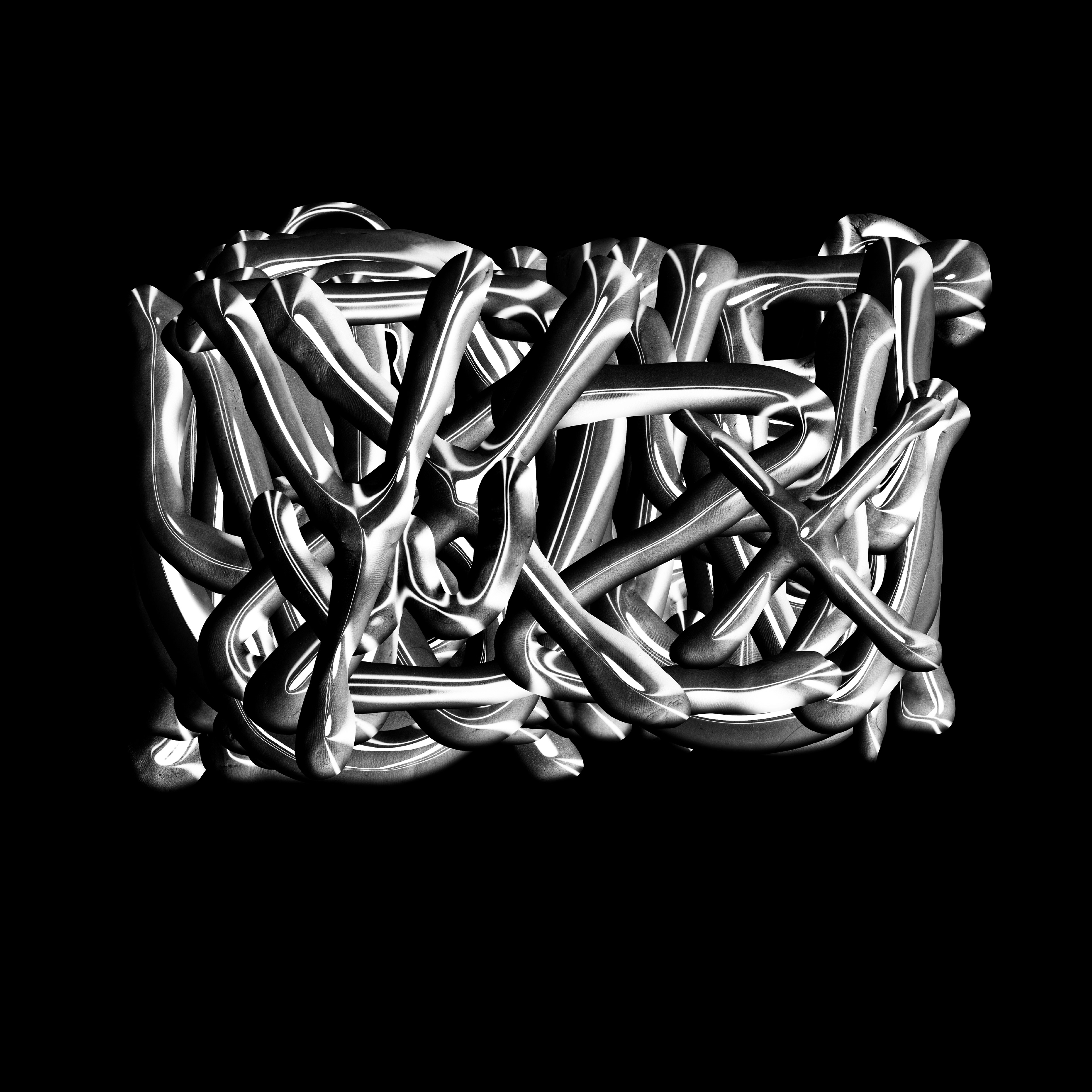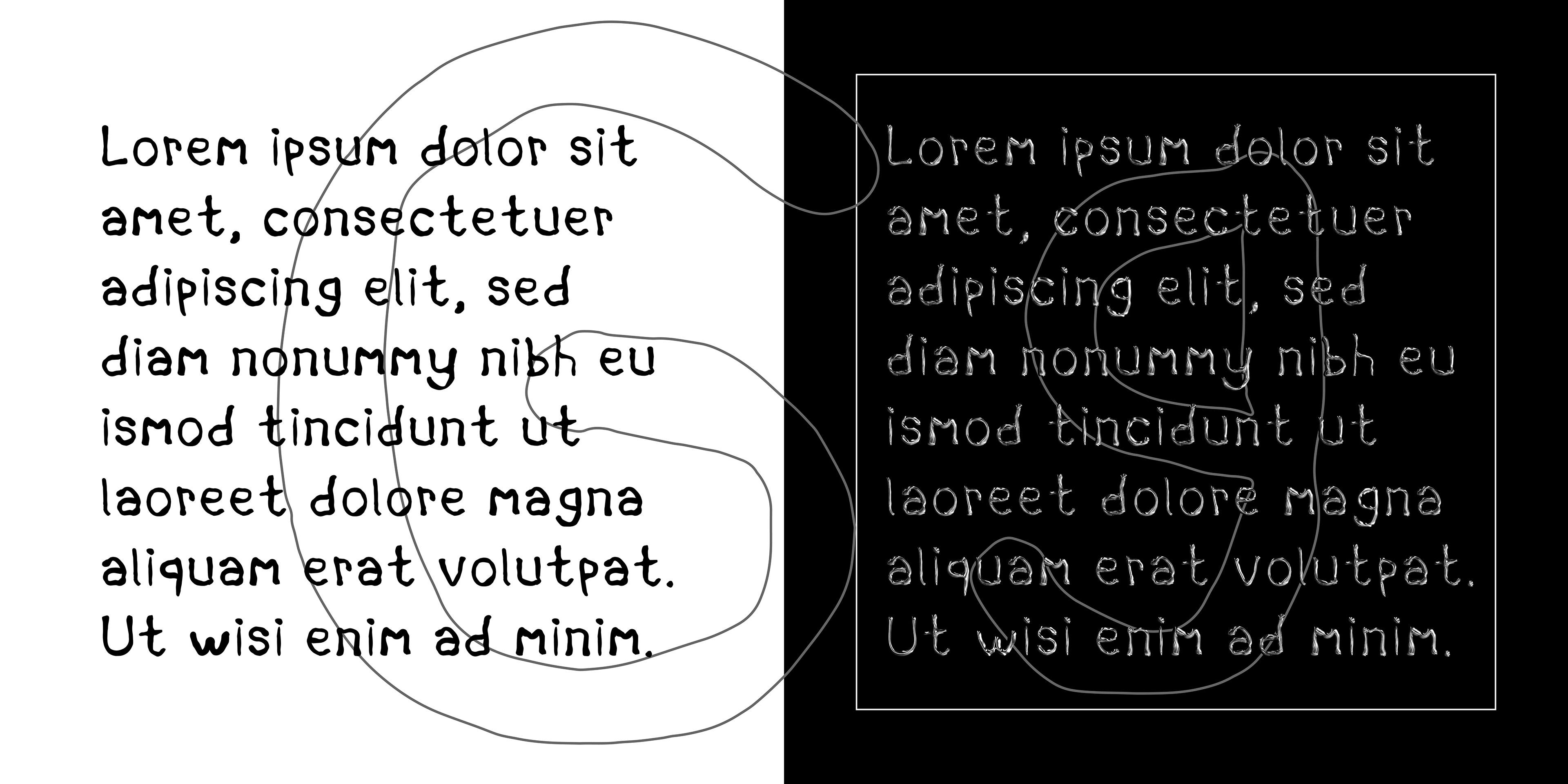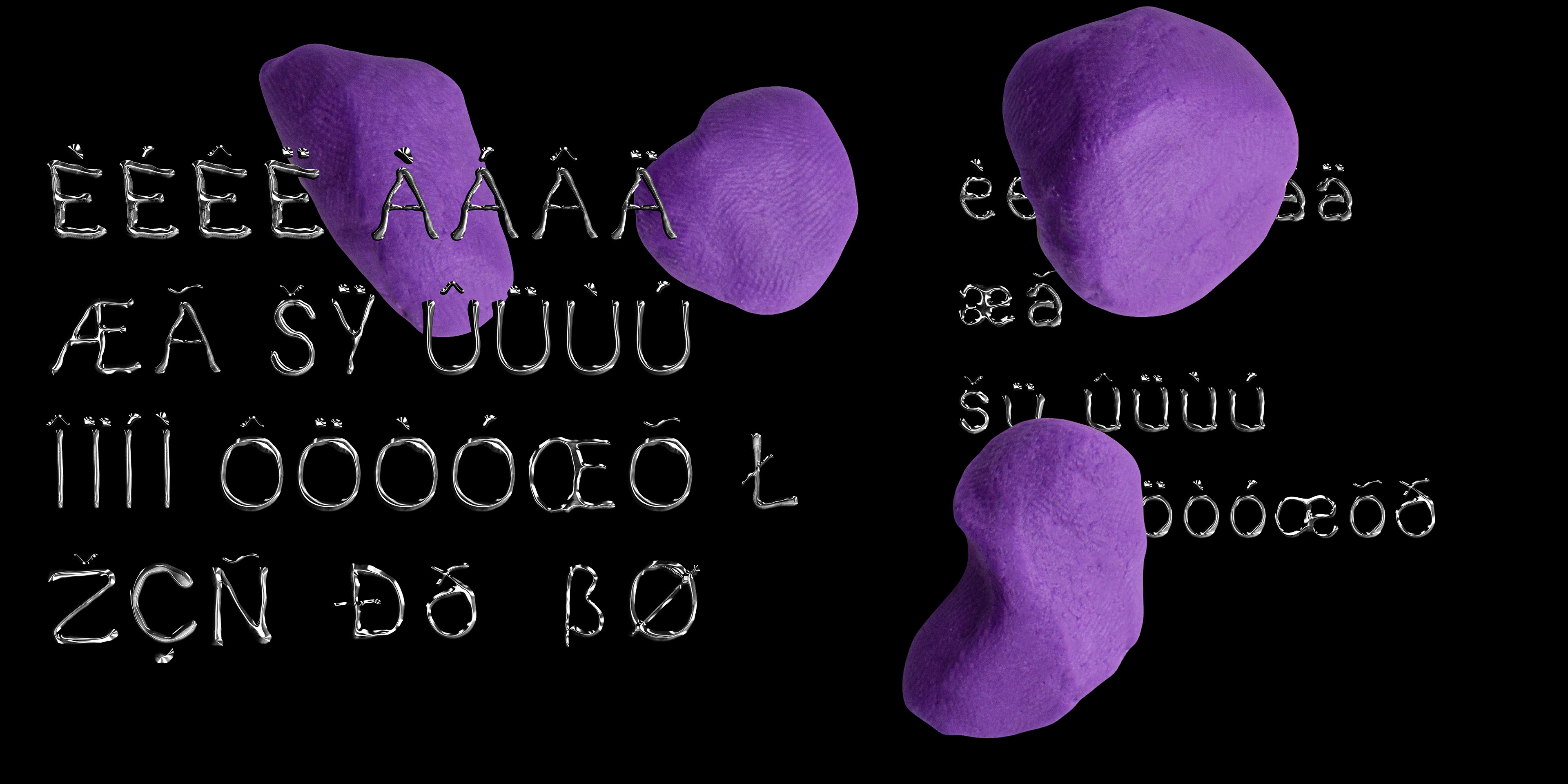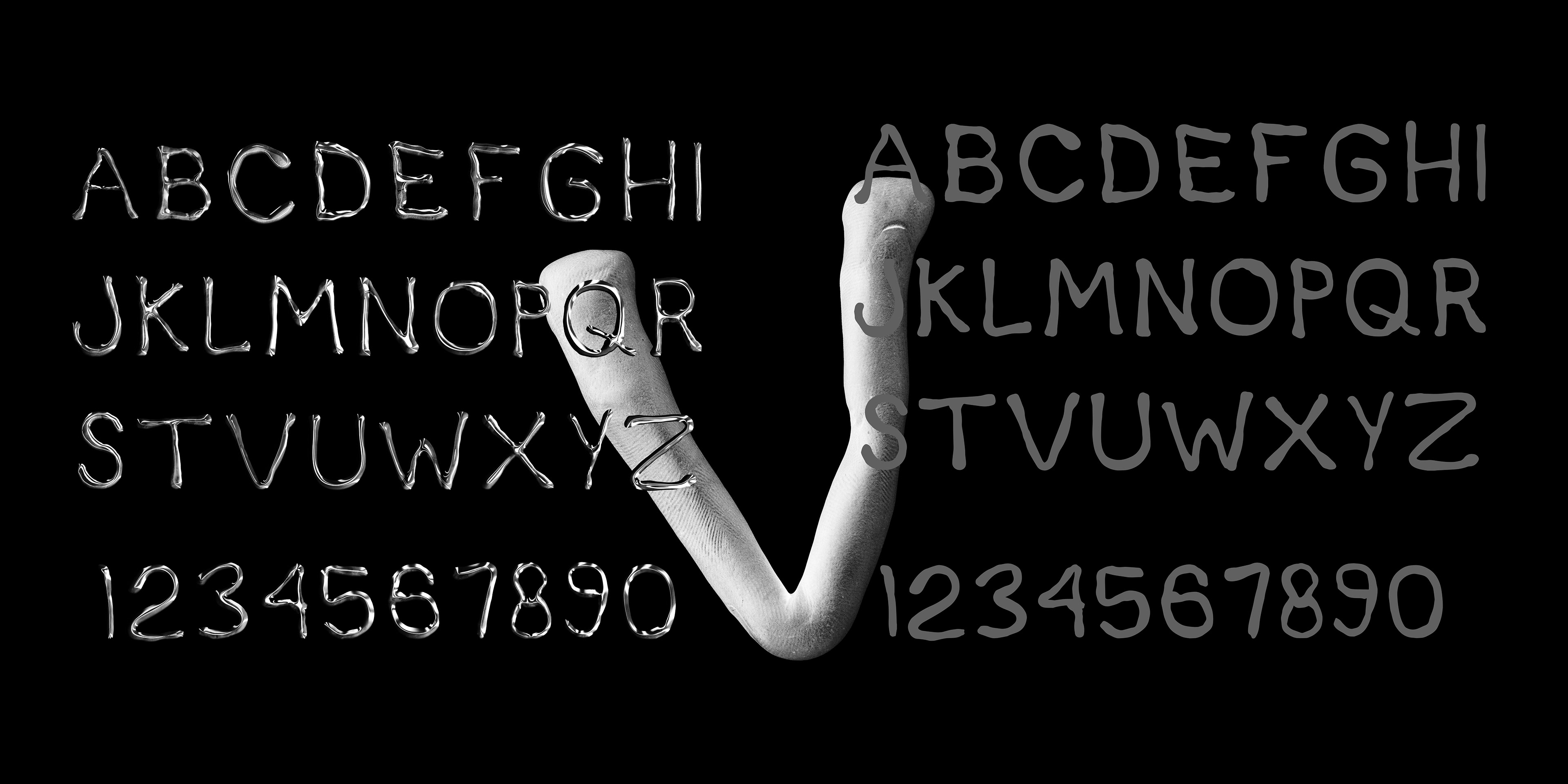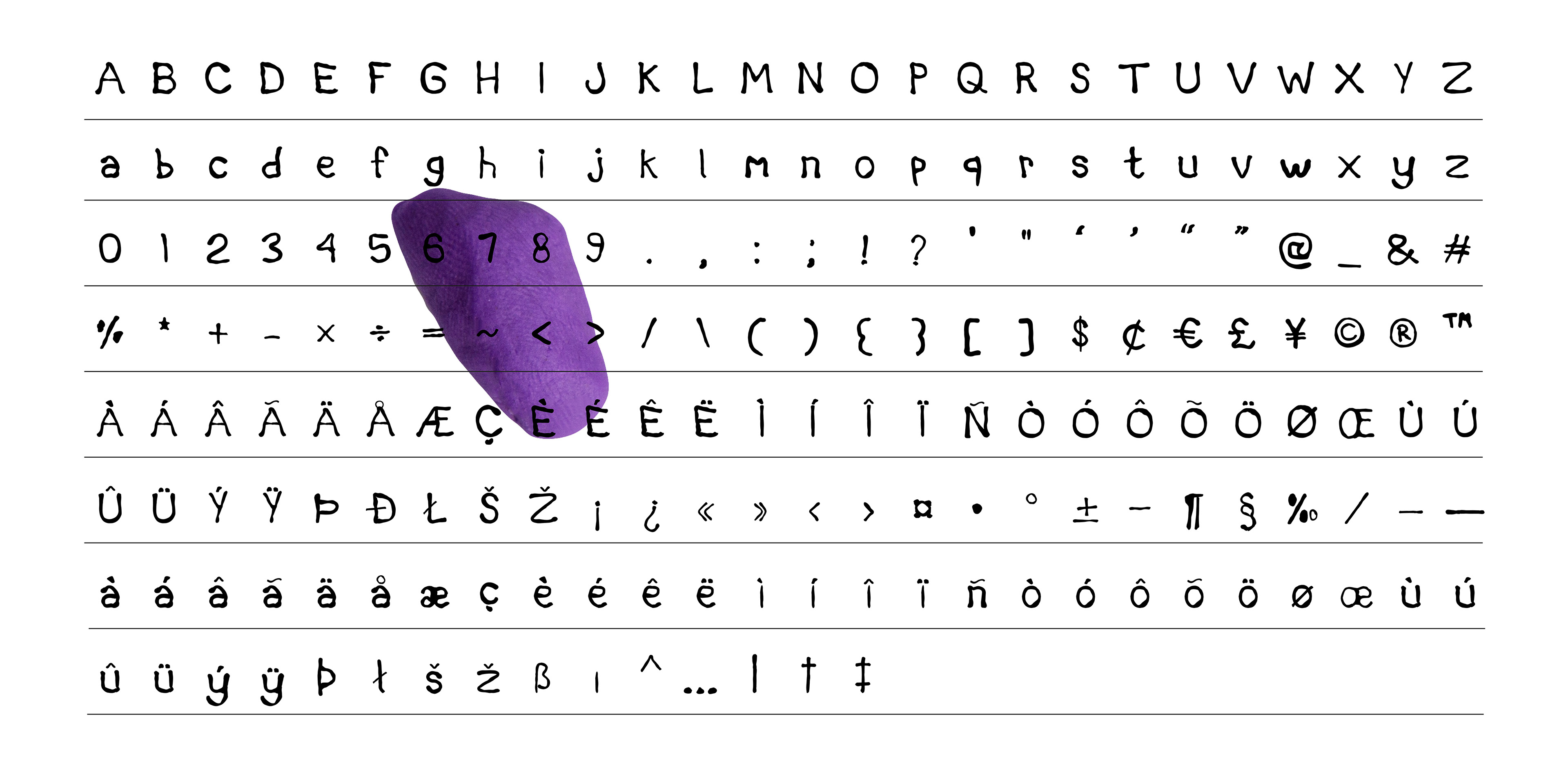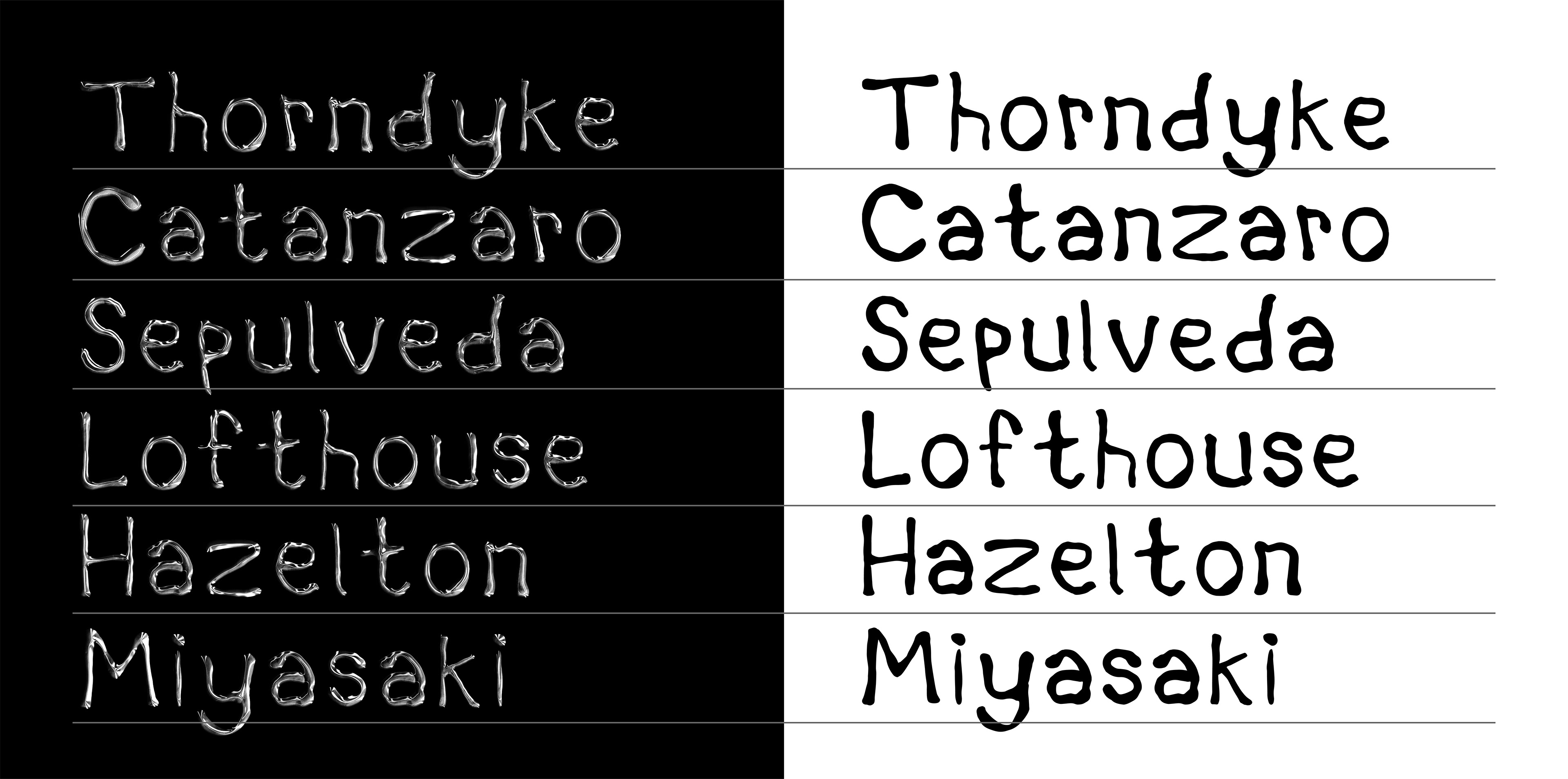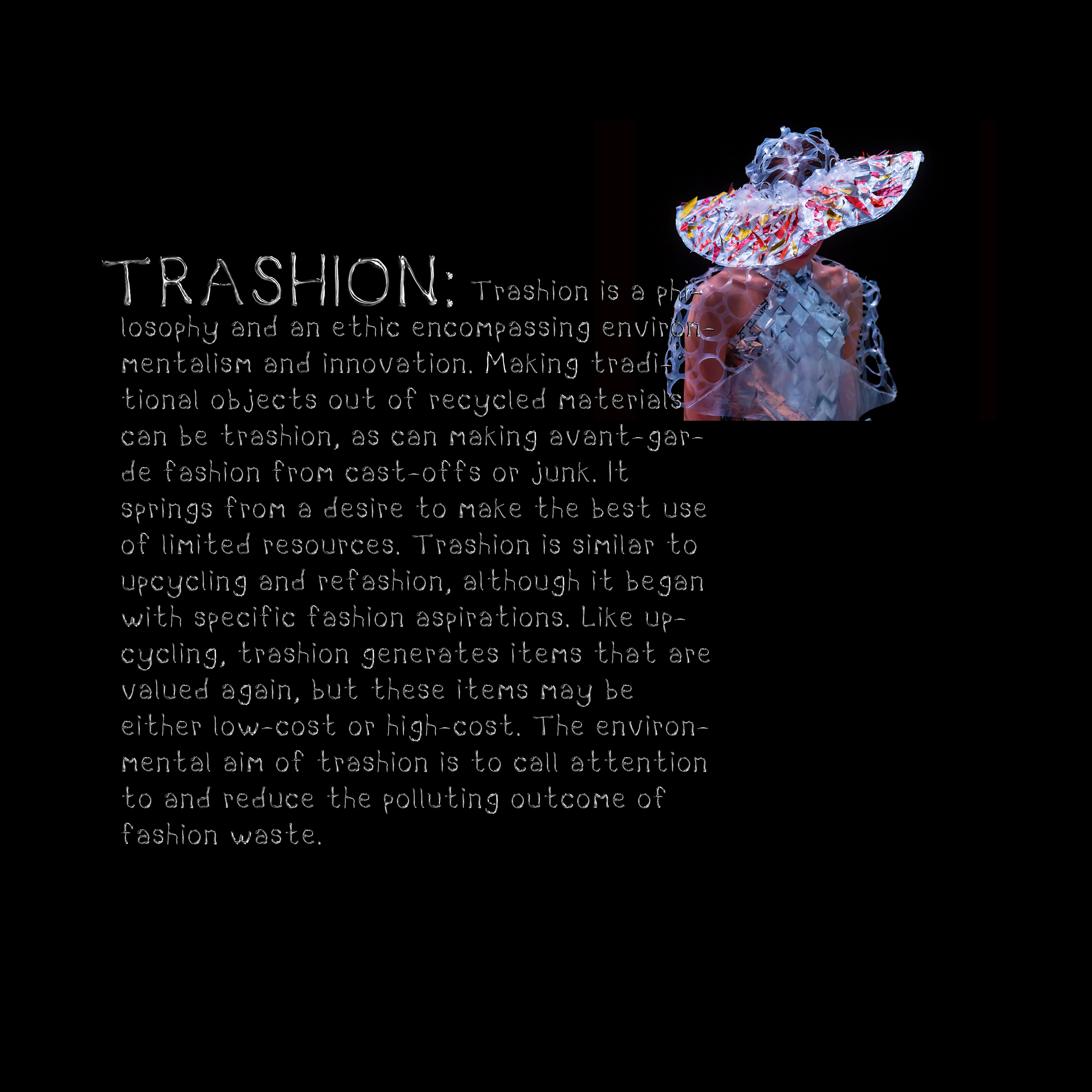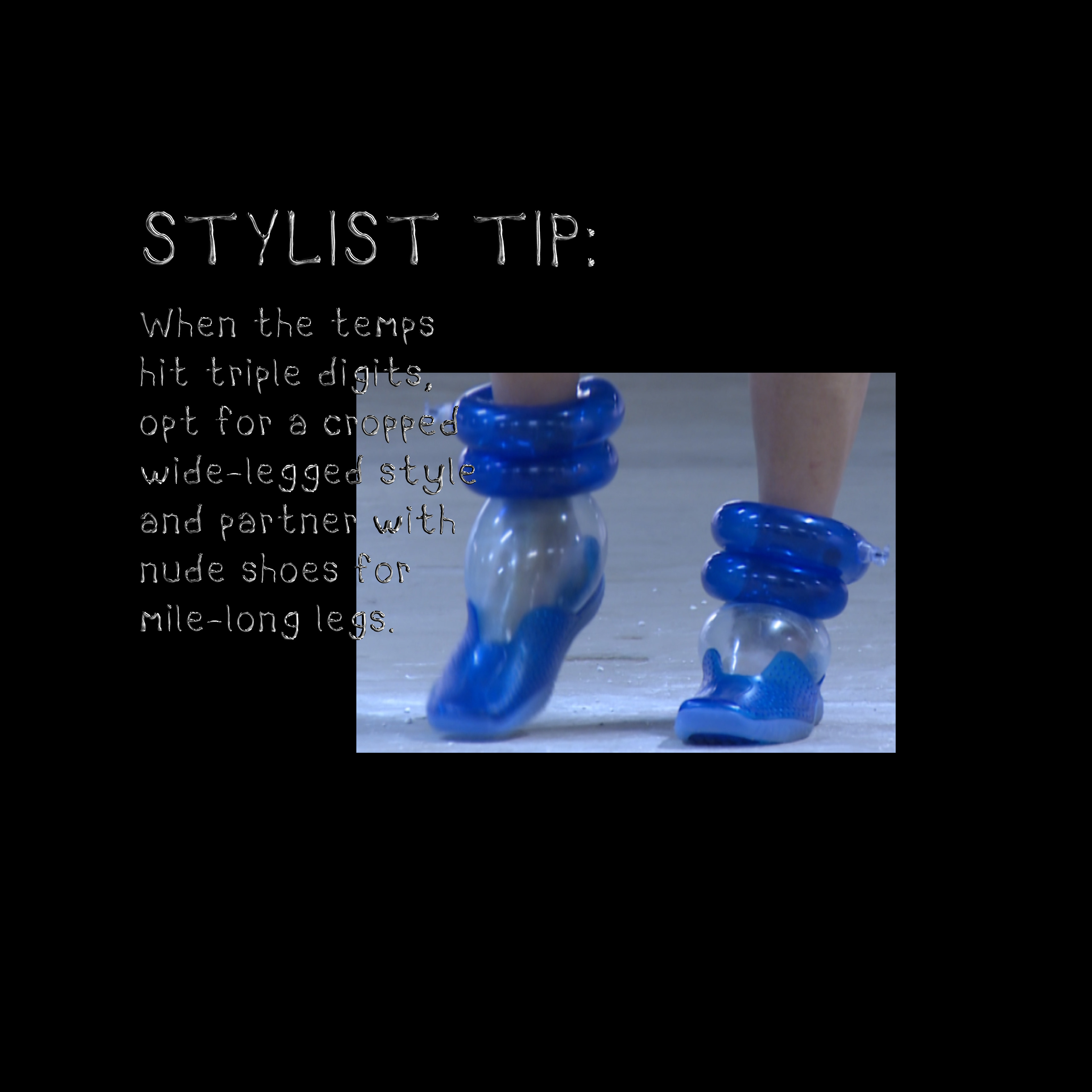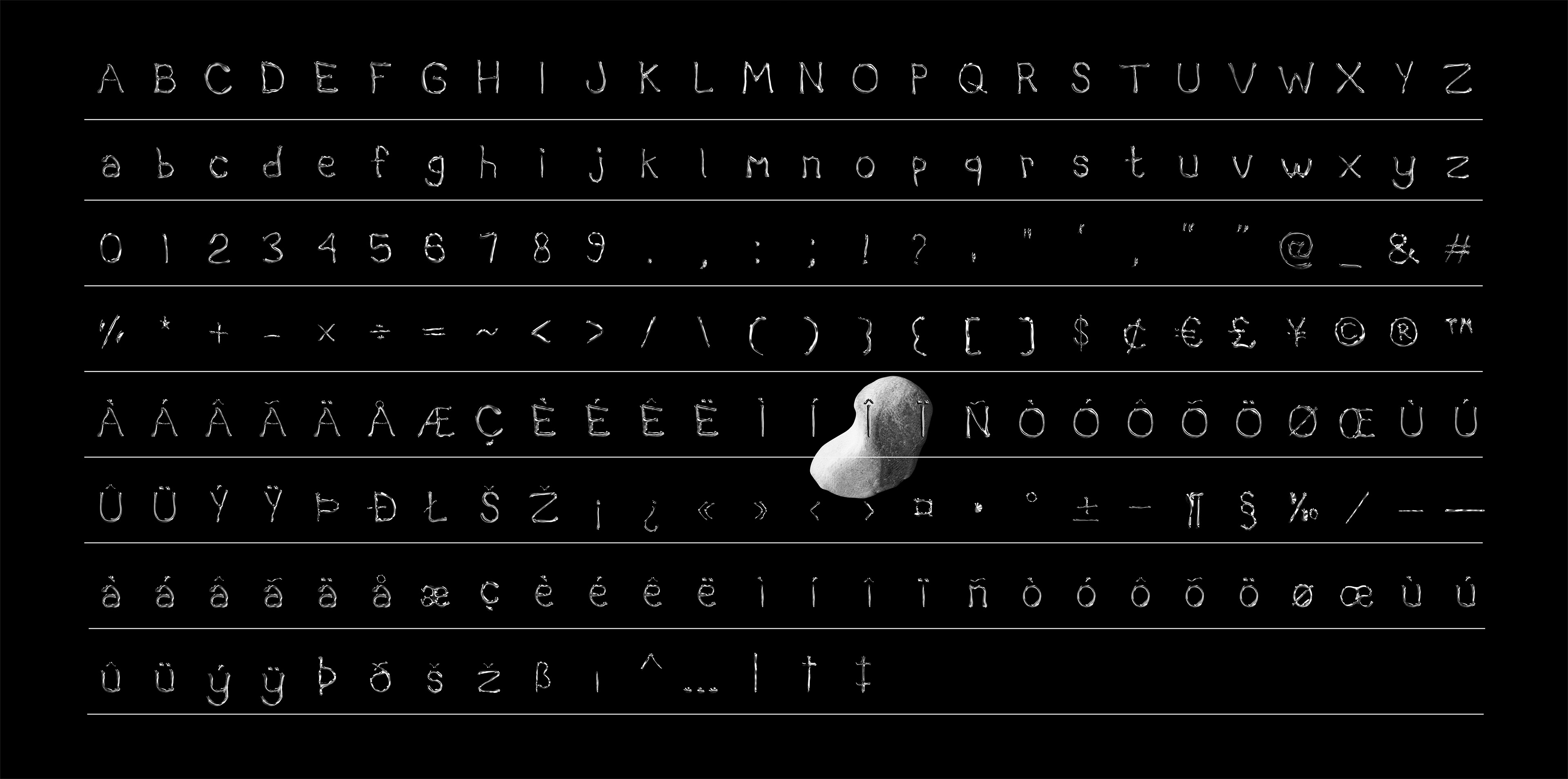
Chrome Balance is an experimental bitmap font created by photographing hand-modeled play dough and adding a chrome effect. It has a unique and dynamic look and is designed to accompany bold and simple designs such as album covers, posters etc.. The vector version of the same form has also been converted to the vector format, font named Amorphic. Contact me after parchuse the font, for chrome version.